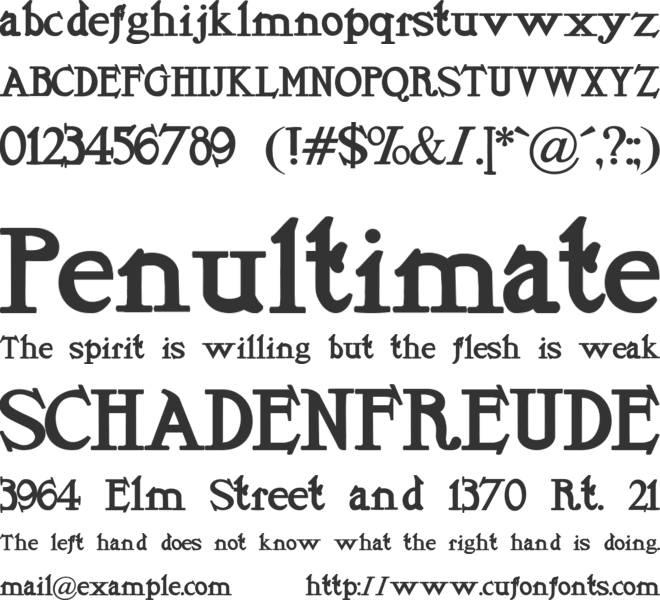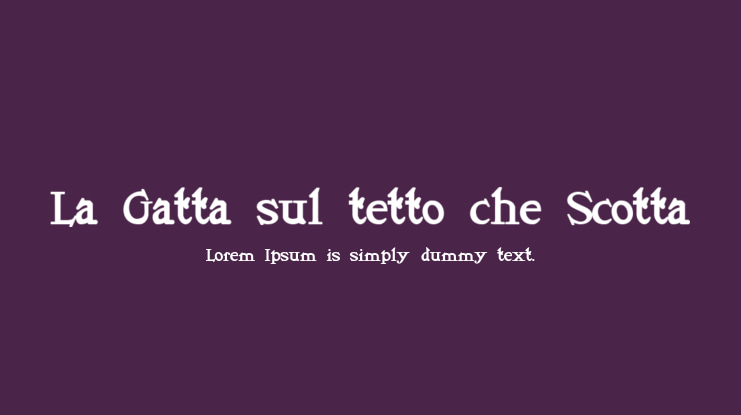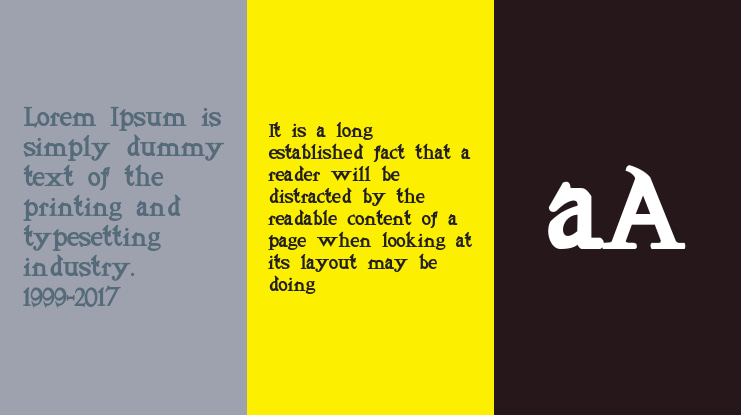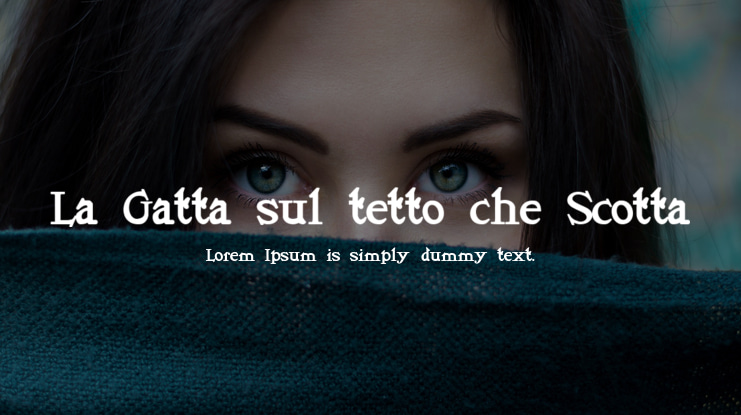
La Gatta sul tetto che Scotta Font
P. A. Vannucci
LA GATTA SUL TETTO CHE SCOTTA font: directly from the Best movie by Richard Brooks, with Liz Taylor and Paul Newman